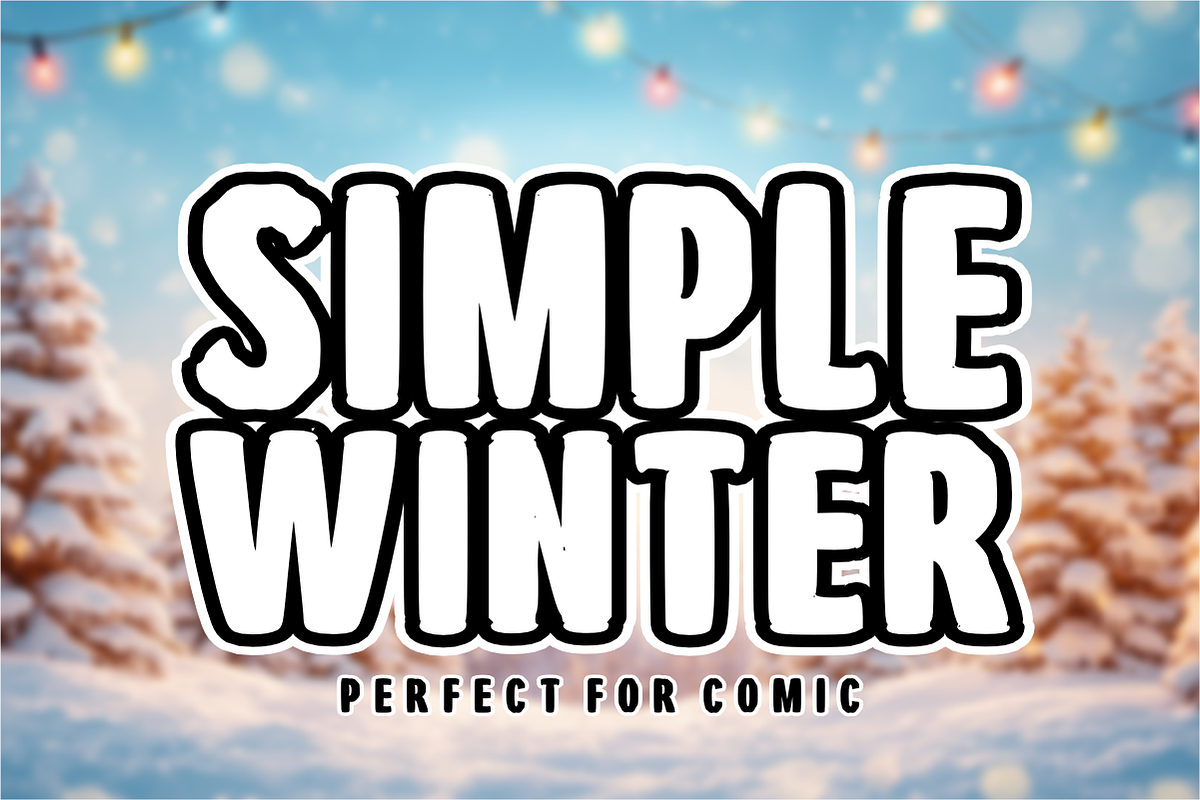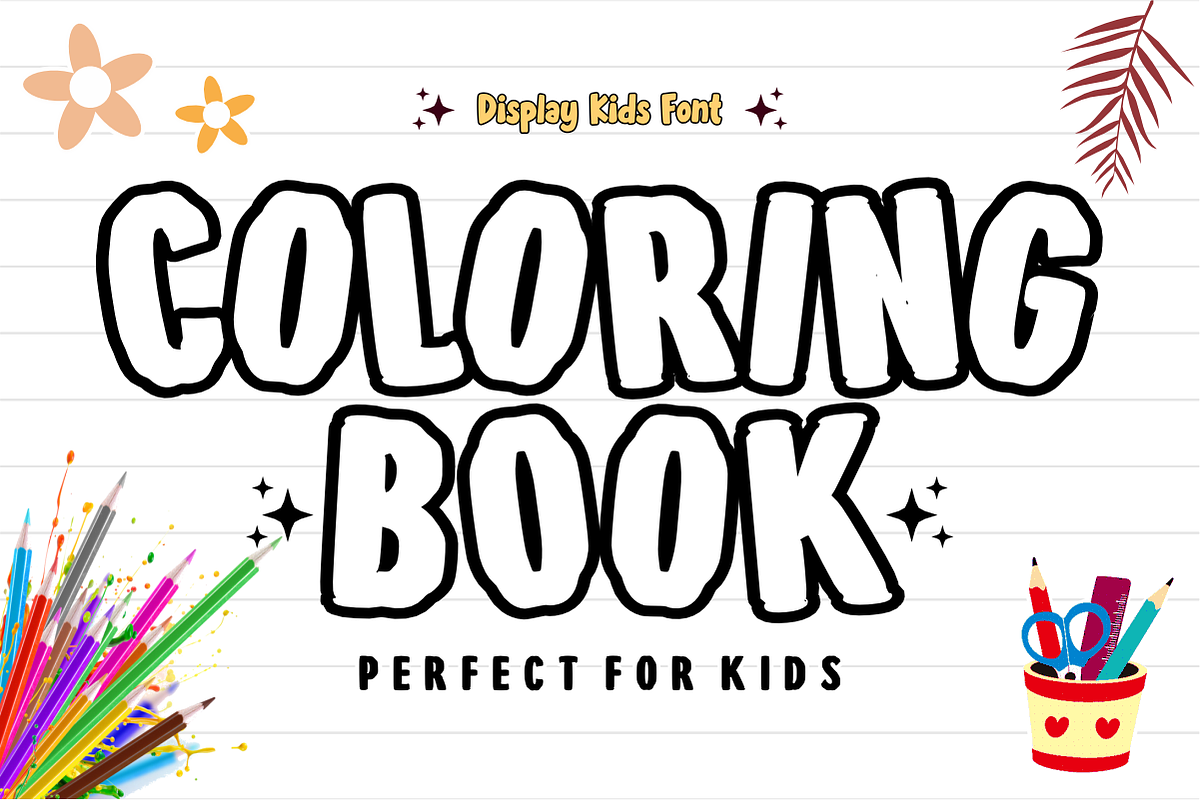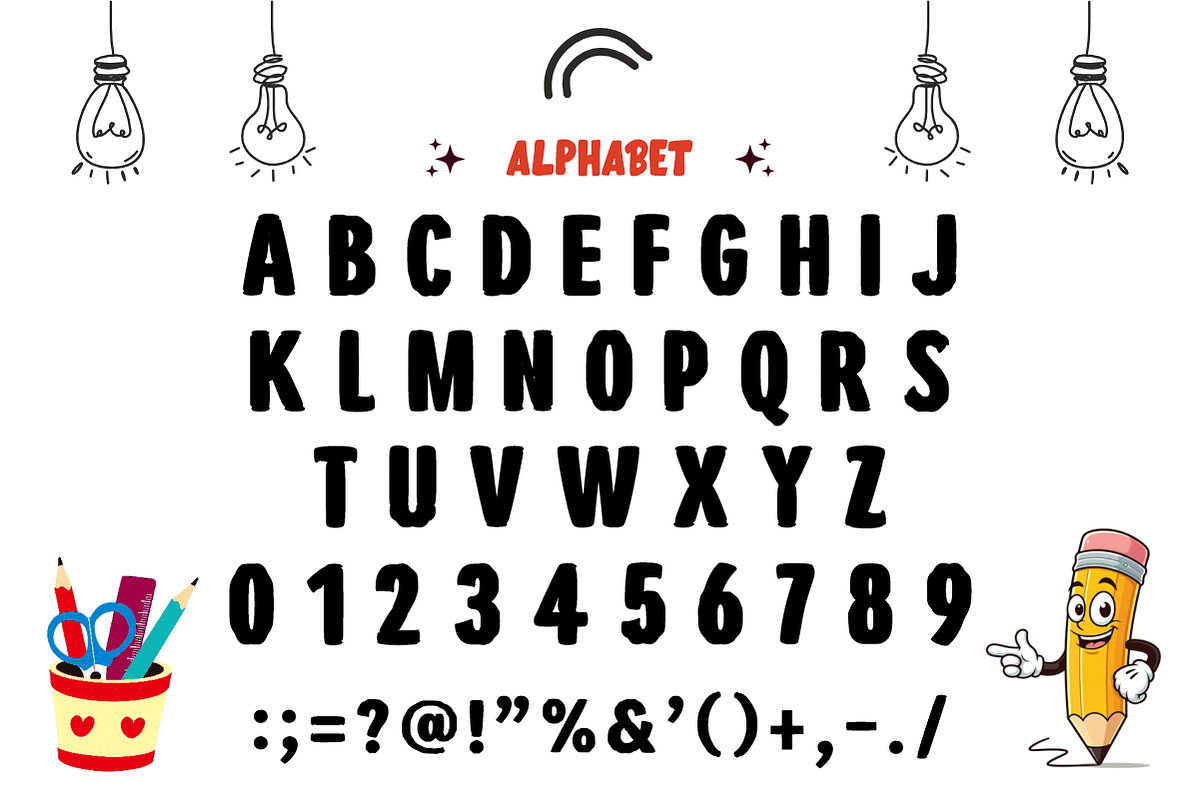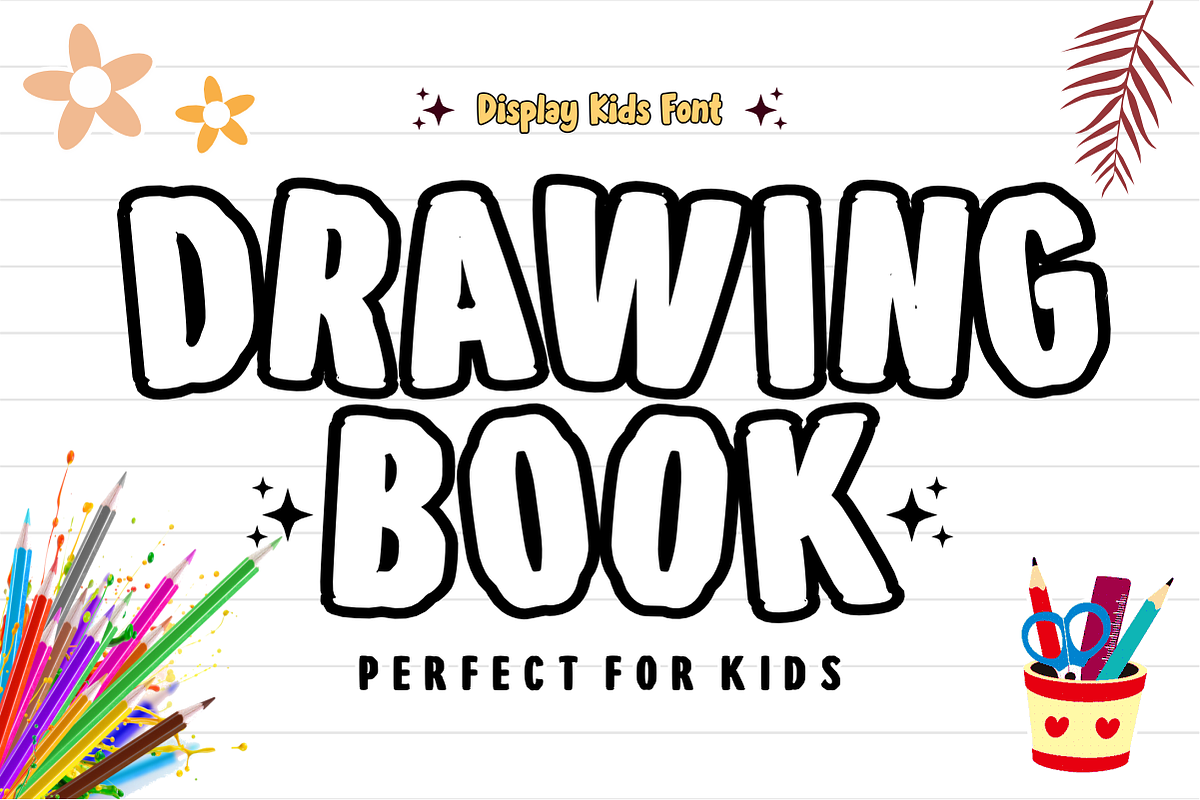
Simple Winter - Playful Comic Font
Simple Winter is a bold, tall display font featuring a fun comic style with charming, organic hand-drawn lines. Perfectly designed for winter holiday themes, cozy seasonal crafts, and playful cartoon layouts, this chunky font adds an instant energetic pop to any headline. Every character is cleanly vectorized to guarantee smooth, effortless cutting on Cricut and Silhouette machines.
Uppercase Character Set
Numbers & Basic Punctuation
Ideal For:
Comic strips, cartoon headers, and playful book layouts
Christmas and winter greeting cards, gift tags, and labels
Custom die-cut stickers, enamel pins, and planner decals
Kids' winter apparel, seasonal mugs, and custom merchandise
Classroom decorations, school posters, and teacher resources
Cricut, Silhouette, and DIY vinyl crafting projects